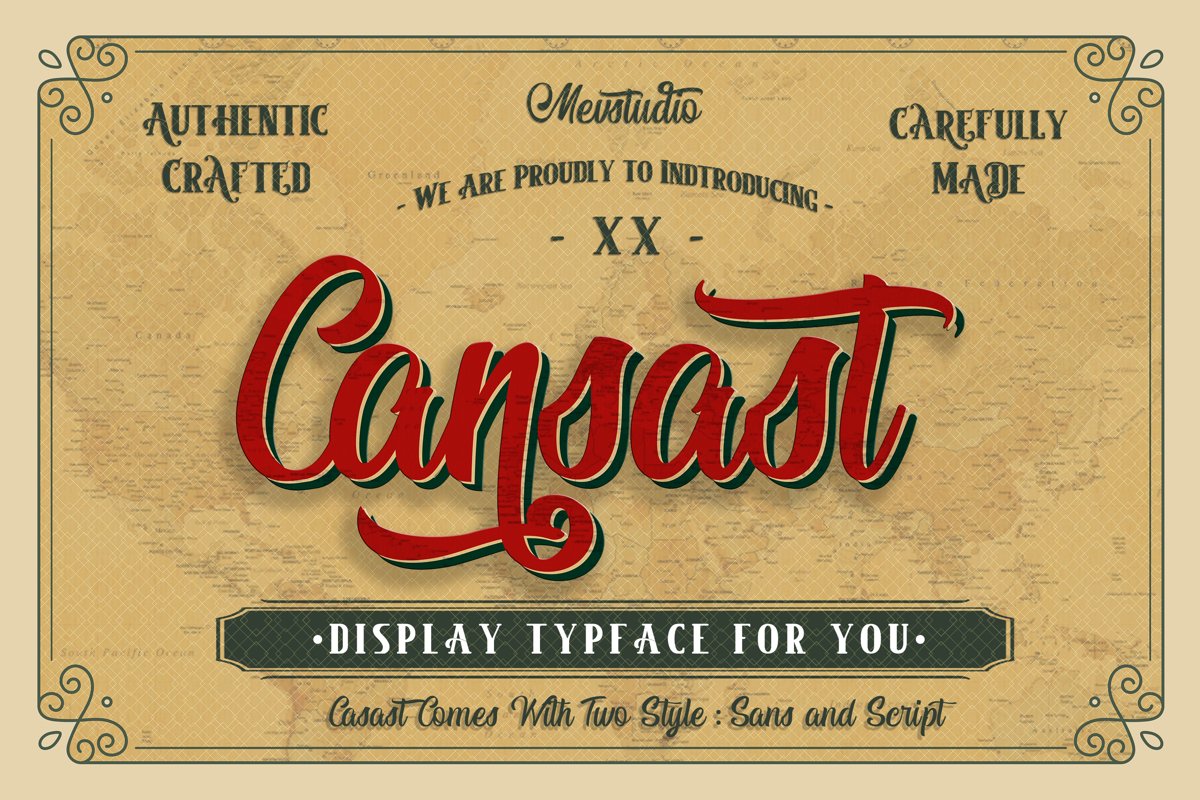
Cansast Font Duo
Cansast
Cansast-Sans
Cansast font duo it was created to help you designing makes gorgeous logos, posters, wedding invitations, blog posts, social media, and more!